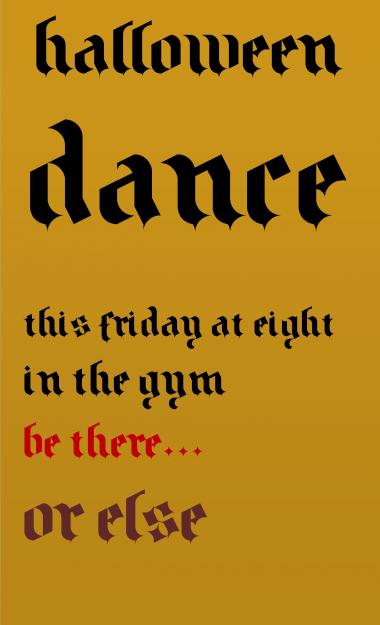
Have you tried the k & s like this?
In the second 'slackers' screen grab.
Another alternative 's'.
....and a few more. :-)
fixed k, s. Tell me if s is too unique.
k looks a little wide, and the main vertical stem is shorter than everything similar like h,b,d etc.
's' looks like a completely different font.
I preferred your original 'g'. It was one of my favourite letters, especially the tail. The new one looks too similar to the 'y.
The 'f' could do with being a little longer, and may be flipping the tail the other way.
Also the letter spacing needs looking at.
Here's some more possible solutions for the 's','k' & f.
I also included an alternative for the 'p'.
1 the letter spacing you're right about.
2 I never changed the g. Not while Spirit was public anyway.
3 I love the new s and k you put out but I'm not sure about the f.
4 oh yes, the k and l are too short.
Here you go. The g is also my favorite.
Great work. Blackletter should have something sinister in it, and you're hitting it!
absolutely touches my goth side if i have one ;-)
well crafted and wonderfully spikey. i'm really a fan of that g.
Great work...keep it up!
Graceful strokes, superb letter shapes. Time well spent in the scriptorium. 10/10
Scriptorium. I like it. You should make a font called Scriptorium.
WOW! Just noticed this little gem. Amazing! I agree with what intaglio said. 10/10